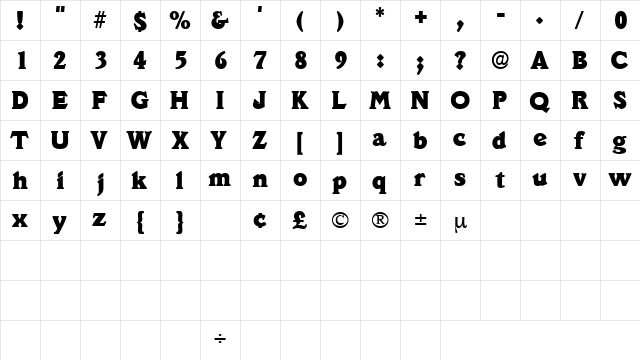
DecusSSK Regular Font Preview
DecusSSK Regular
Design Context for DecusSSK Typeface
DecusSSK offers clean, dependable letterforms without strong stylistic allegiance, making it a practical choice for designers who need flexibility.
Pro Tip: Use DecusSSK in both headline and body roles to test its range before committing to a single application.